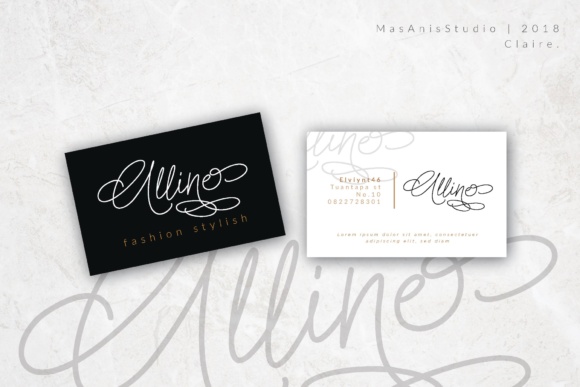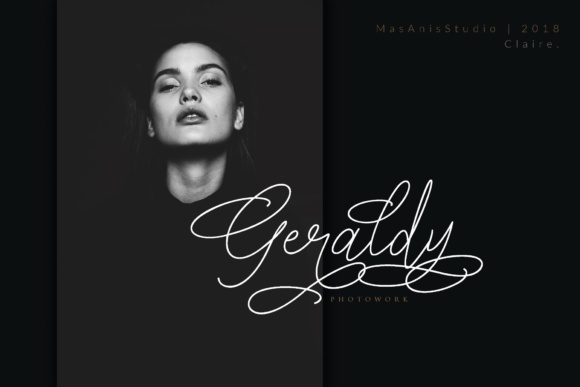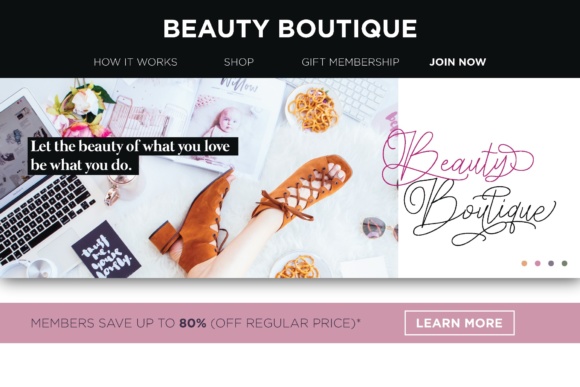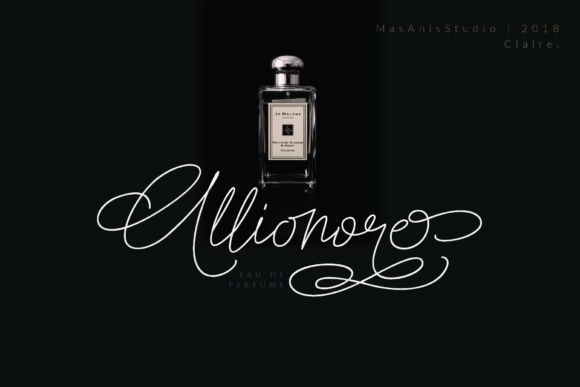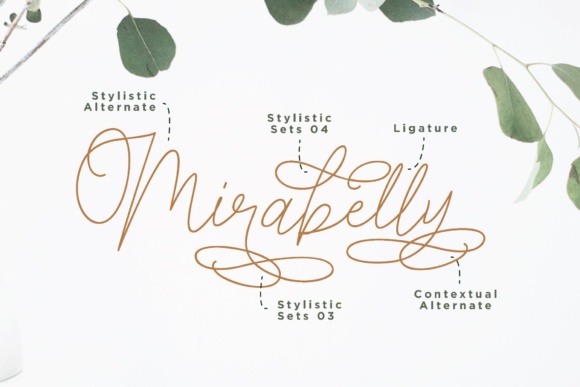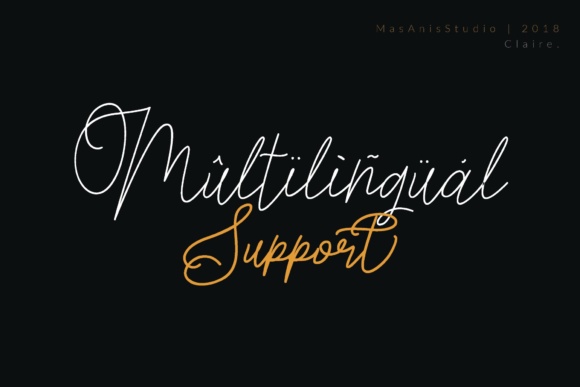
Introducing Claire Script Font: Elevate Your Designs with Elegance and Modernity
Are you searching for a font that embodies the perfect blend of elegance and modernity? Look no further than Claire Script Font. This stunning script font is designed to add a touch of sophistication to any design project, making it an ideal choice for crafters, designers, and anyone looking to elevate their visual creations.
The Perfect Blend of Elegance and Modernity
Claire Script Font seamlessly combines the classic charm of traditional script fonts with the sleekness of modern typography. The result is a font that exudes refinement and poise, perfect for designs that require a level of sophistication. Whether you’re working on a luxury brand project, creating wedding invitations, or designing elegant packaging, Claire Script Font is the perfect choice.
Key Features of Claire Script Font
- Elegant and Cursive Design: Claire Script Font features a beautiful, cursive design that flows effortlessly across the page. Its elegant strokes and curves create a sense of movement and fluidity, adding a touch of dynamism to your designs.
- Modern and Clean: Despite its classic inspiration, Claire Script Font boasts a modern and clean aesthetic that ensures it remains highly legible, even at smaller font sizes.
- Highly Versatile: This font is incredibly versatile, making it suitable for a wide range of design applications, from digital projects to print materials.
- Easy to Read: Claire Script Font is designed to be easy to read, with clear and distinct letterforms that ensure your message is communicated effectively.
Use Cases for Claire Script Font
Claire Script Font’s versatility makes it an excellent choice for various design projects, including:
- Branding and Logo Design: Create a lasting impression with a sophisticated logo that incorporates Claire Script Font, perfect for luxury brands, beauty products, and high-end services.
- Wedding and Event Stationery: Add a touch of romance and elegance to your wedding invitations, save-the-dates, and other event materials with this beautiful script font.
- Packaging Design: Elevate your product packaging with Claire Script Font, ideal for premium products, cosmetics, and gourmet food items.
- Digital Design: Use Claire Script Font in your digital projects, such as website headers, social media graphics, and email newsletters, to add a level of sophistication and professionalism.
Tips for Using Claire Script Font
To get the most out of Claire Script Font, consider the following tips:
- Pair with a Sans-Serif Font: Combine Claire Script Font with a clean sans-serif font to create a striking contrast that adds visual interest to your design.
- Experiment with Font Sizes: Play with different font sizes to create a hierarchy of information and add emphasis to key elements in your design.
- Use it Sparingly: While Claire Script Font is beautiful, it’s best used sparingly to avoid overwhelming the reader. Use it for headings, titles, or key phrases to add emphasis and create visual appeal.
Claire Script Font is a stunning addition to any designer’s font collection. Its perfect blend of elegance and modernity makes it an excellent choice for a wide range of design projects. With its highly legible design, versatility, and beautiful cursive strokes, Claire Script Font is sure to elevate your designs and leave a lasting impression on your audience.